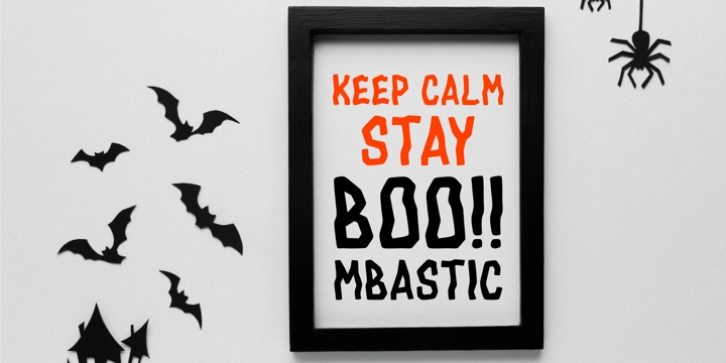
Drac Tombstone Font Family was designed by ANGGI HERMAWAN, and and published by Forberas Club. Drac Tombstone contains 1 styles and family package options.
This new Handwritten font is written by our team, and ready to pop up your project by using this font for your party, event, invitation or at your wedding decor.